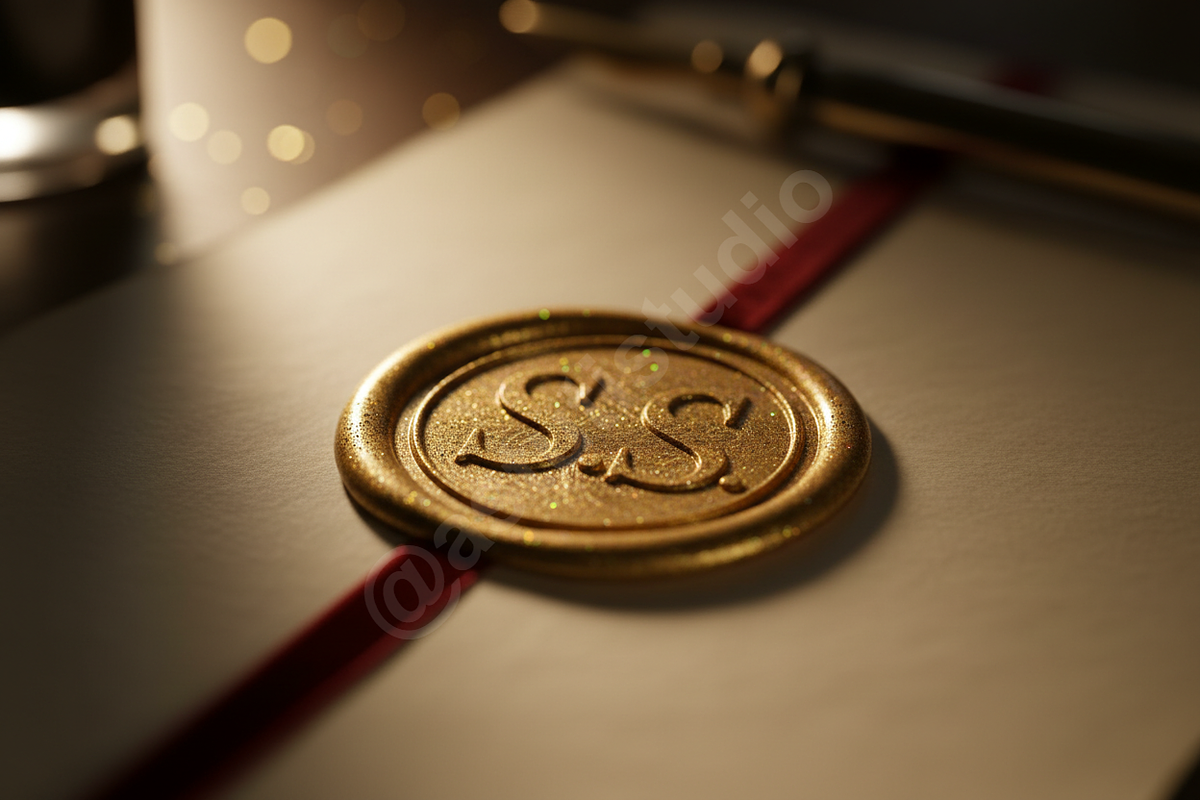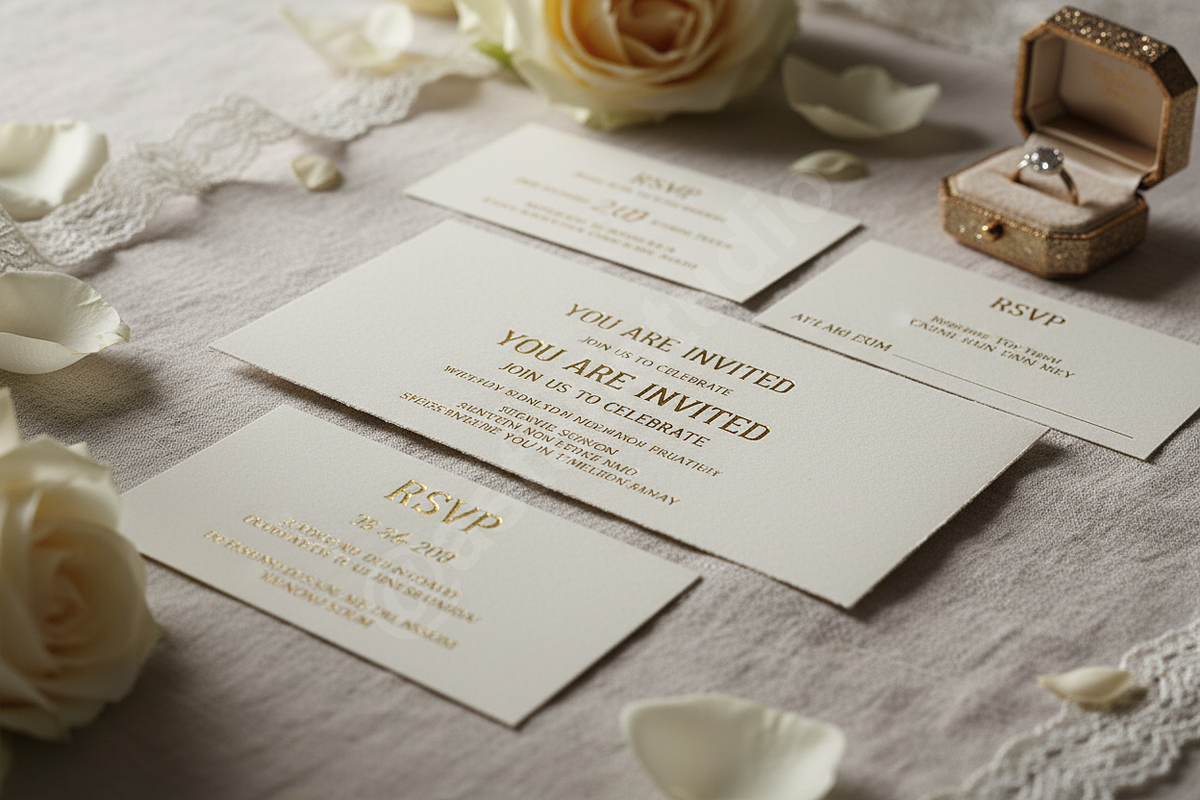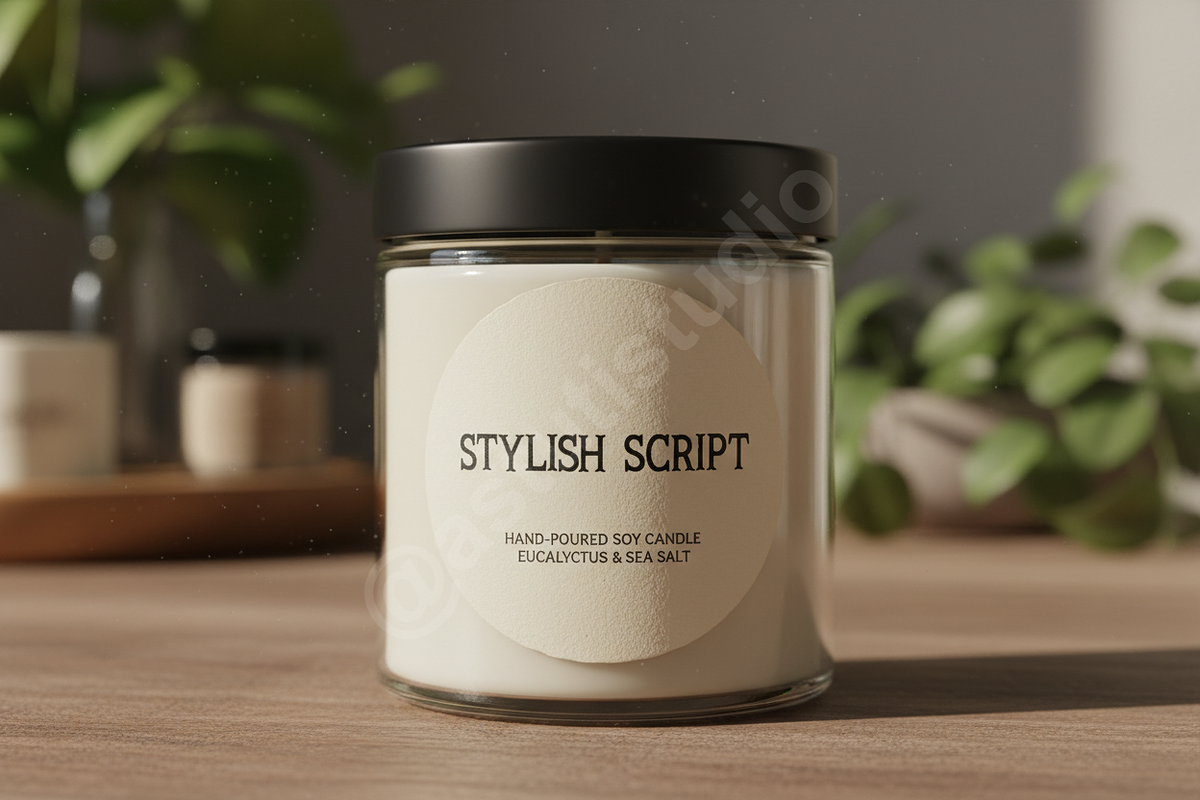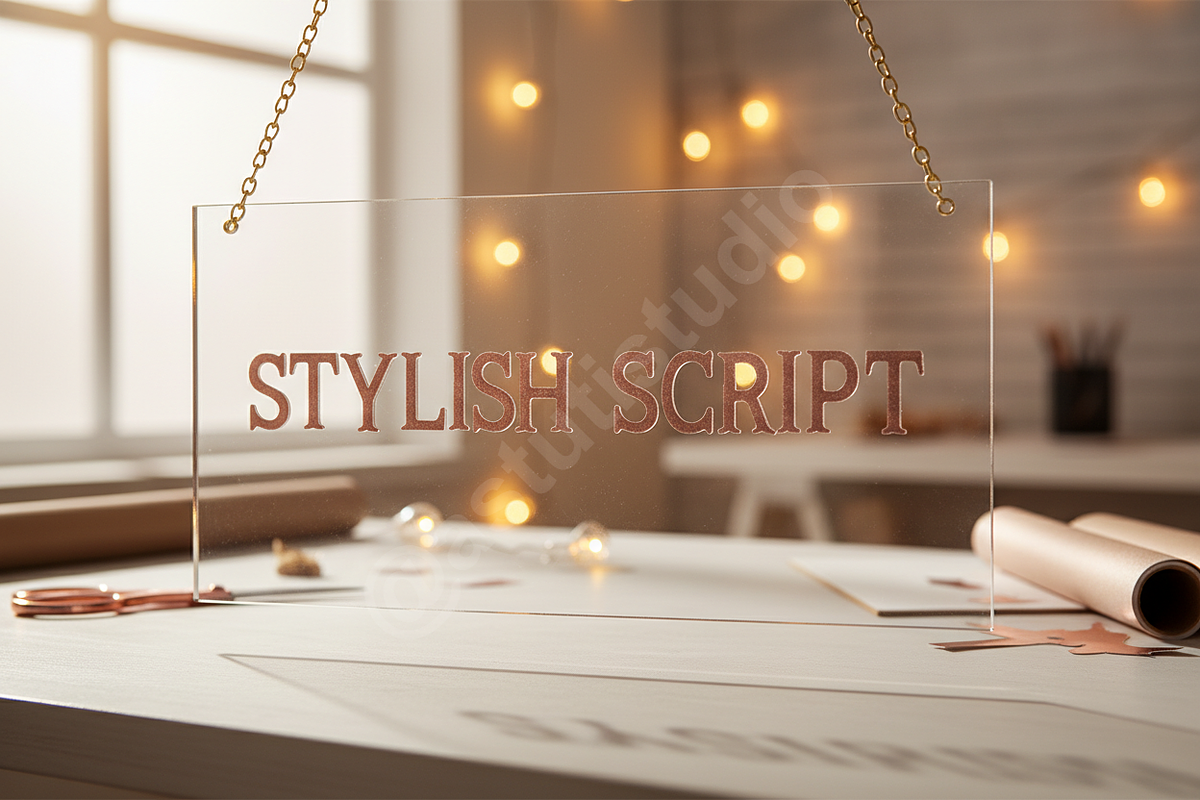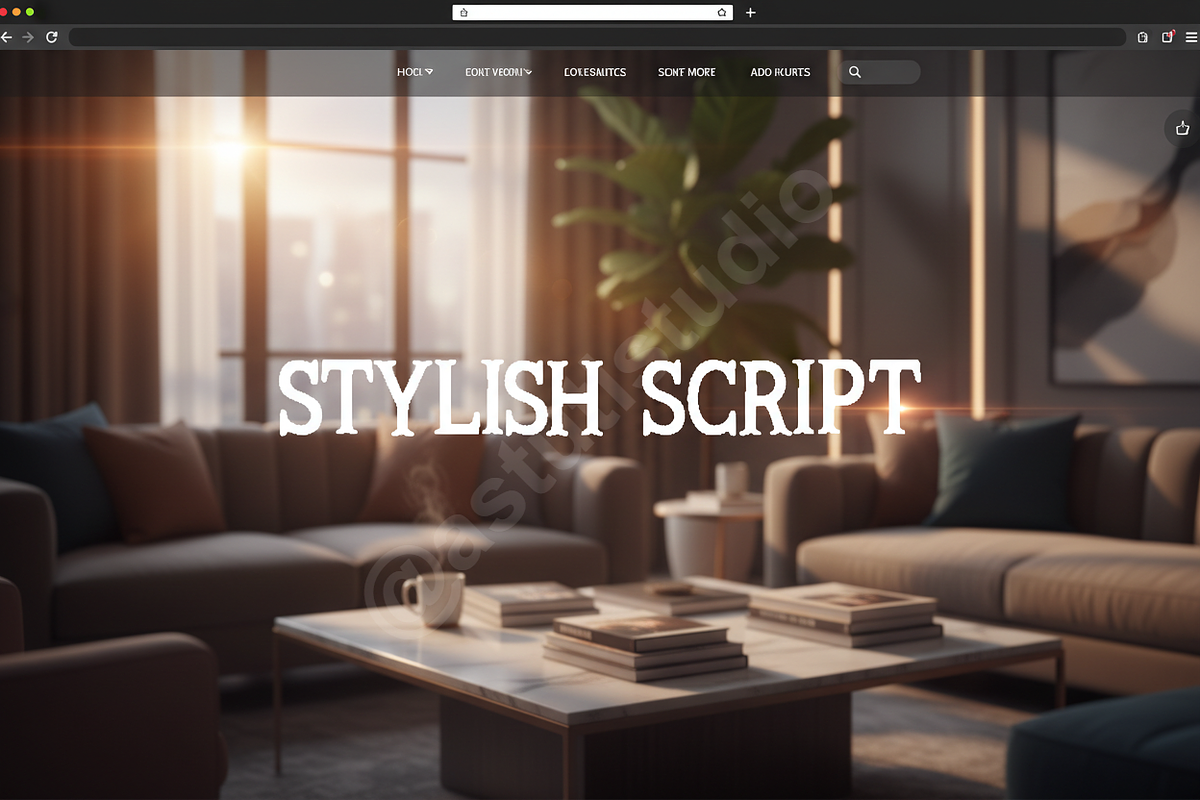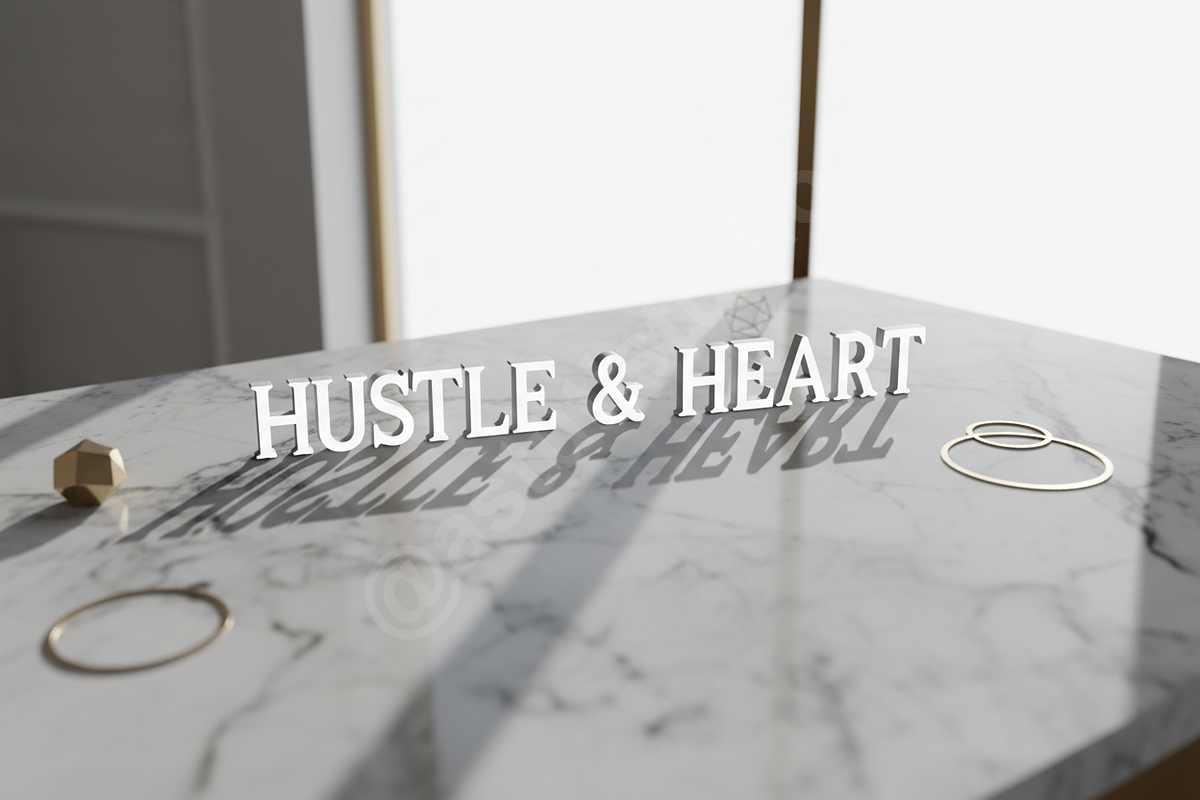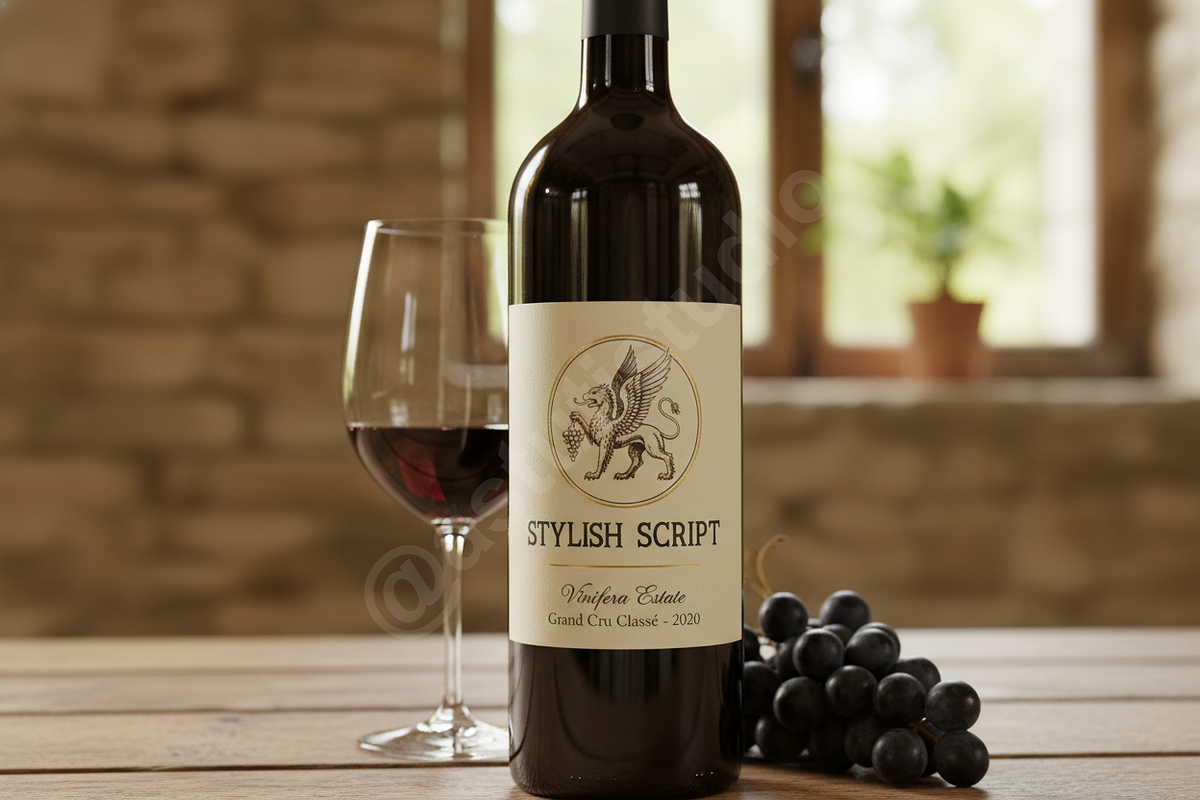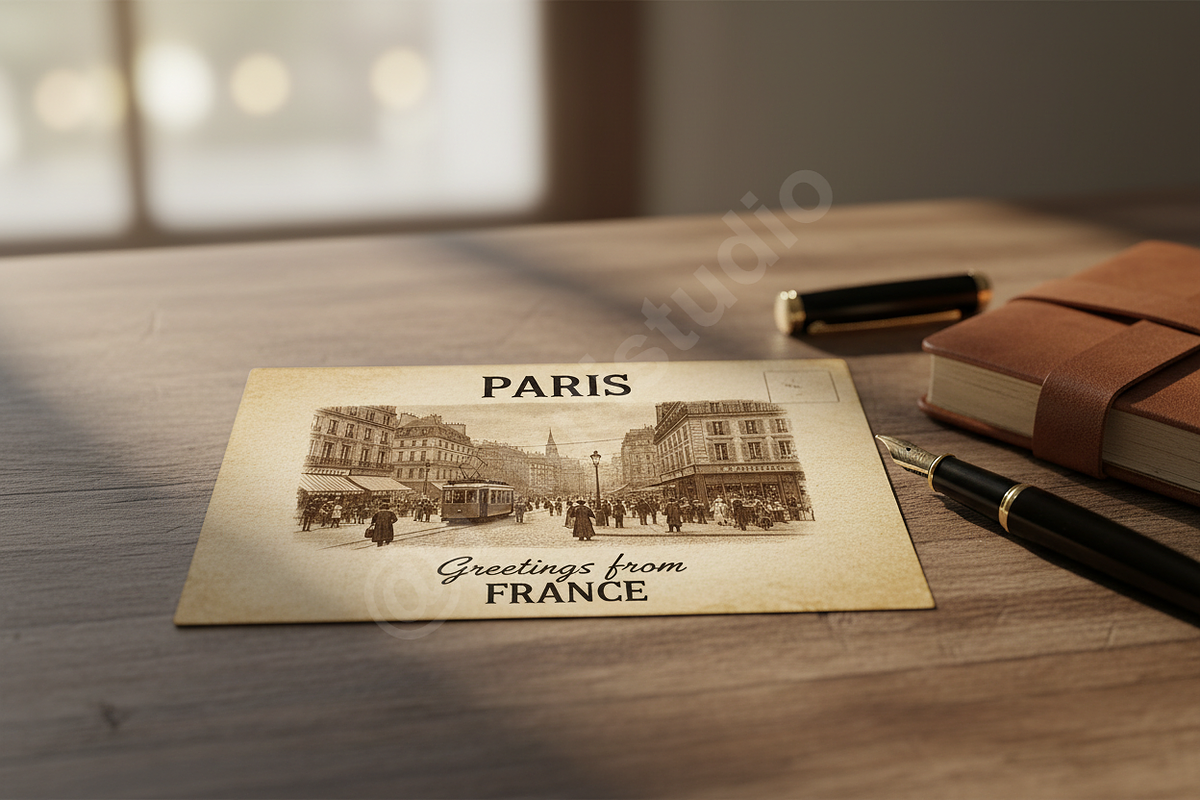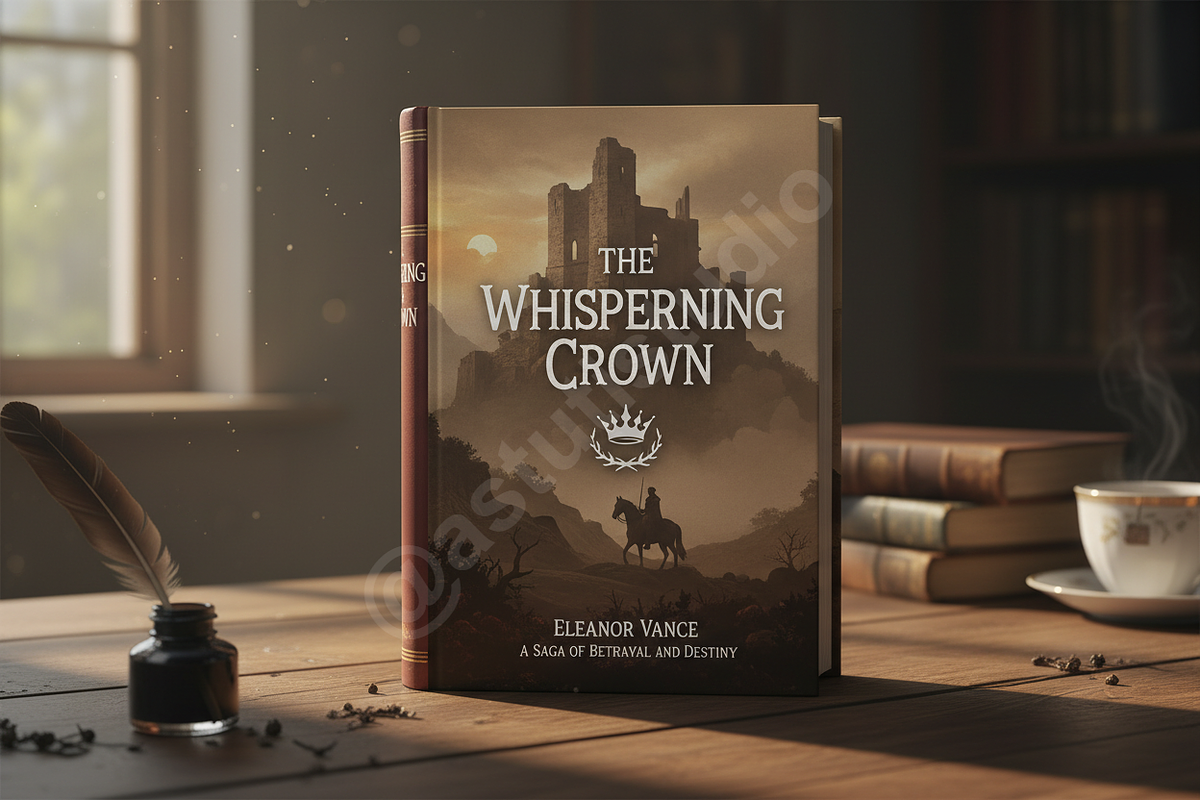
Jewete | A Refined Luxury Serif Type
INTRODUCTION Jewete is a sophisticated serif font that embodies timeless elegance and modern refinement. Designed specifically for premium branding, editorial layouts, and high-end social media content, Jewete brings a sense of poise and luxury to every character. Its delicate balance of thick and thin strokes makes it an ideal choice for fashion, beauty, and lifestyle brands seeking a polished, high-end aesthetic.
- Refined high-contrast serif design for maximum elegance
- Extensive collection of unique ligatures and alternates for custom looks
- Clean and legible letterforms suitable for both display and body text
- Comprehensive multilingual support for global reach